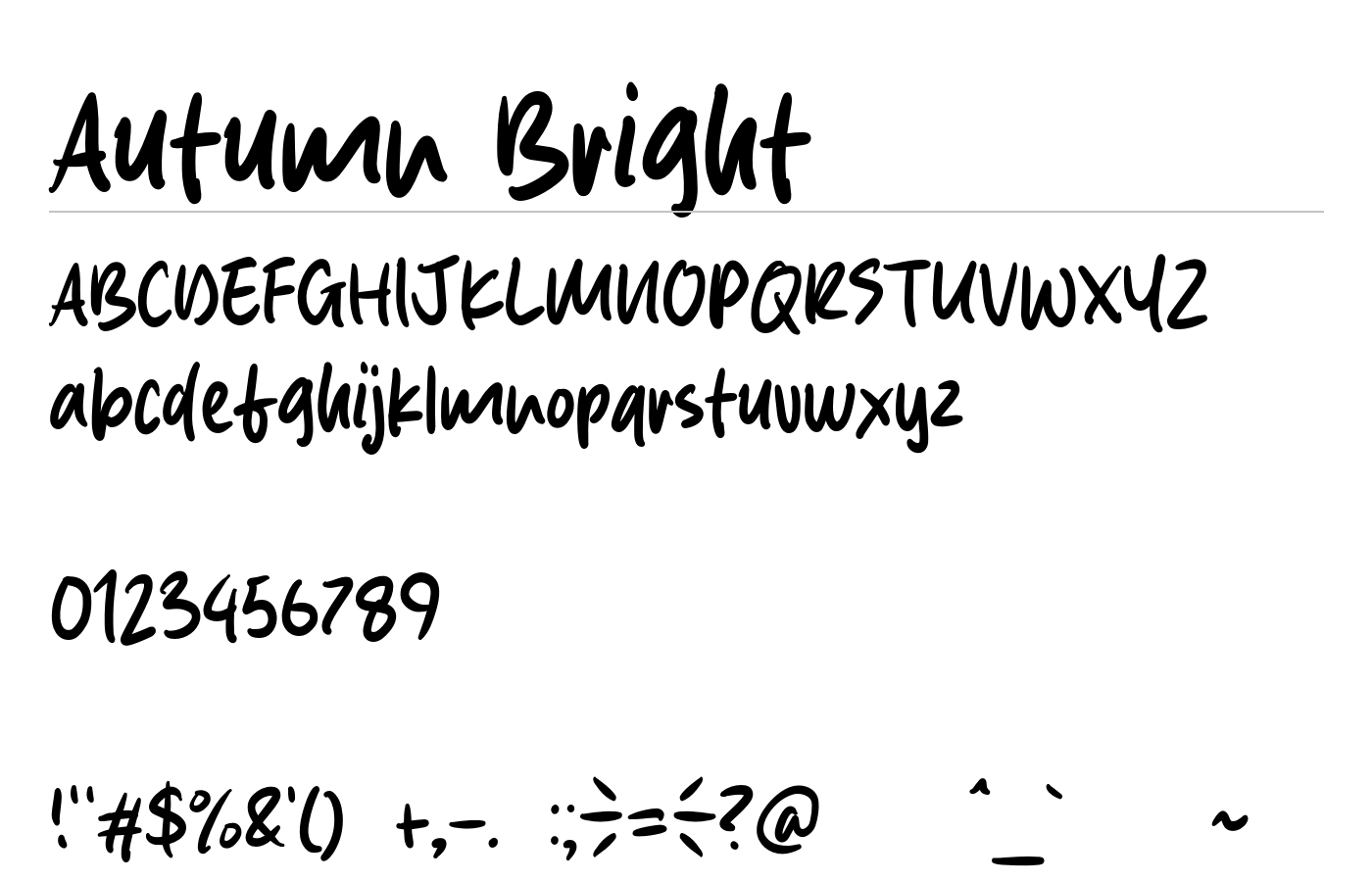
Autumn Bright is a lively and informal handwritten font with a casual, friendly vibe that brings a personal touch to any design. Its medium weight and upright, slightly rounded letterforms create an approachable style perfect for playful branding, children’s products, or creative projects seeking warmth and energy. This font works especially well in logos, invitations, and social media where a natural, hand-crafted feel is desired.
Autumn Bright Font
About Autumn Bright Font